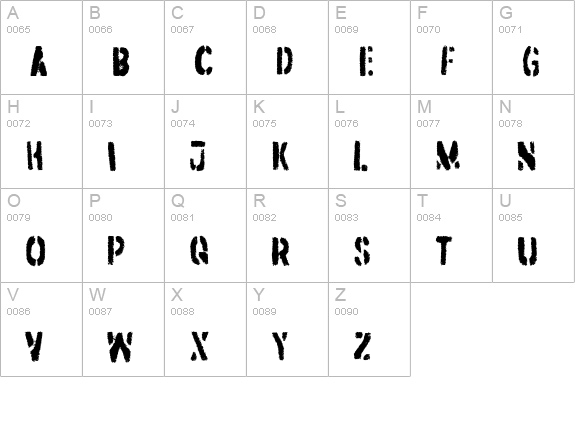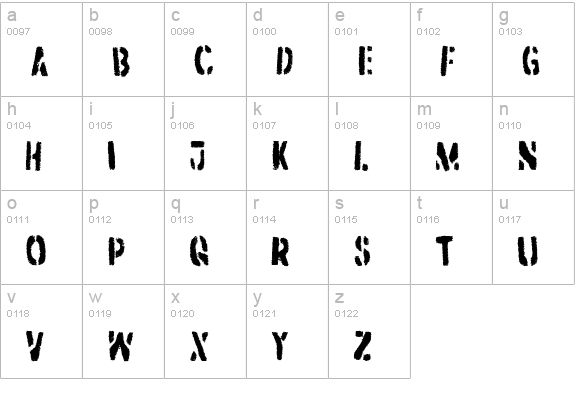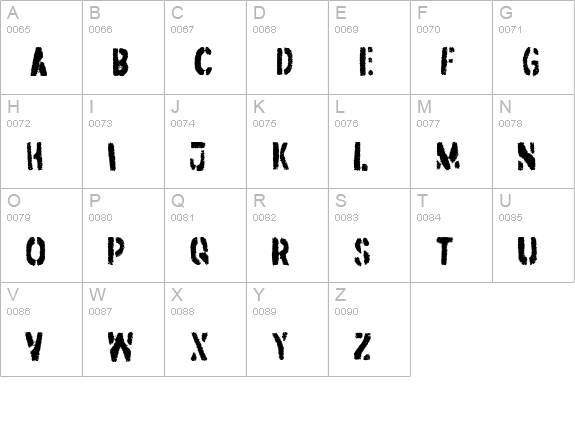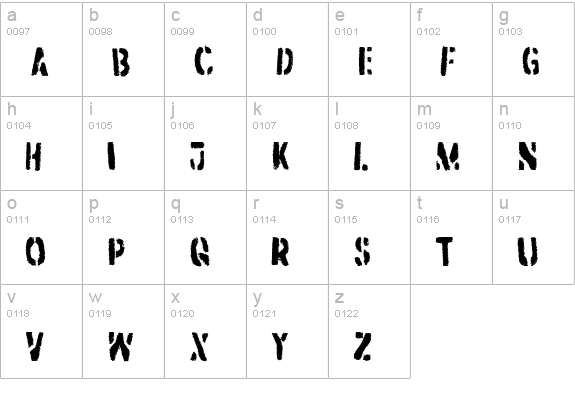
Dirtstorm Font Details
Dirtstorm font is a rugged and bold typeface that exudes a sense of adventure and raw energy. Its weathered appearance gives it a unique and distinctive look, perfect for projects that require a touch of grit and authenticity. The rough edges and uneven strokes of Dirtstorm font add a touch of roughness and character to any design. This versatile font is ideal for a wide range of applications, from branding and packaging to posters and social media graphics. Its bold presence ensures that your message will stand out and make a lasting impression. The best part? Dirtstorm font is available for free download at FontsMarket.com. So go ahead and add this dynamic and eye-catching typeface to your collection today!